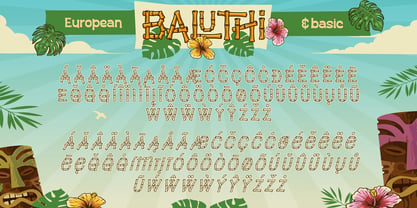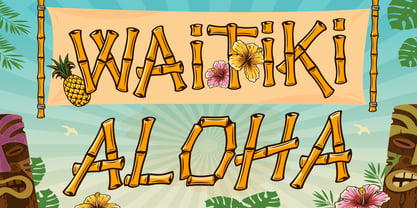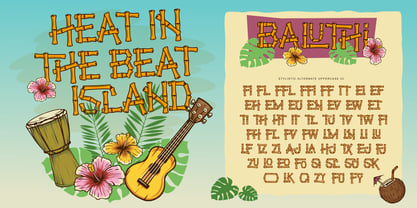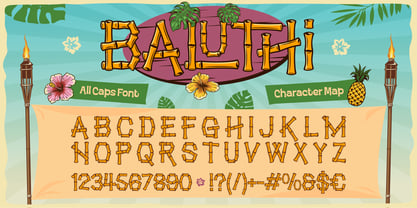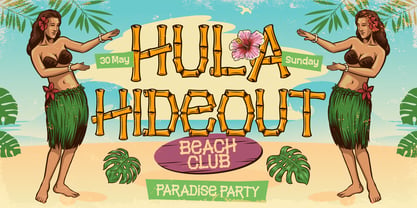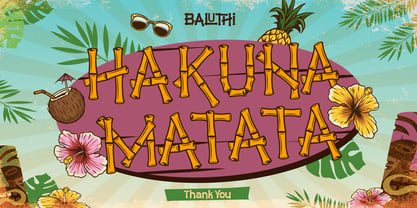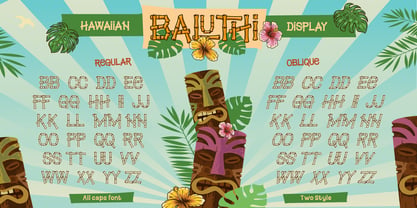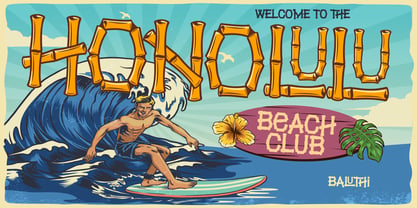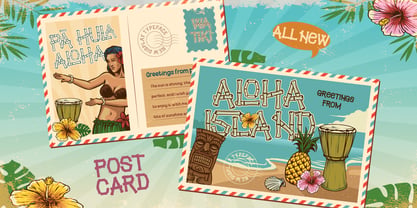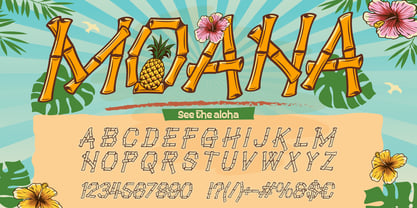
Baluthi
The Baluthi Font Family was designed by Meidy Meichico and published by Artisan Themes. Baluthi contains 2 styles and family package options. More about this family
Turn up the tropical vibes with Baluthi, a fun and distinctive bamboo Hawaiian display font handcrafted by Artisan Font. Designed with realistic bamboo stalks, joint details, and authentic wooden textures, Baluthi brings instant island charm, tiki bar energy, and beachside nostalgia to your creative projects.
This all-caps display font comes equipped with two distinct styles—Regular and Oblique—giving you maximum flexibility to build dynamic, high-energy layout headlines.
Perfect for:
• Tiki bar menus, signage, & cocktail lounge branding
• Summer beach party posters, flyers, & Hawaiian festival graphics
• Surf shop logos, apparel, & beachwear merch
• Tropical food packaging, juice labels, & restaurant menus
• Island tourism branding, YouTube thumbnails, & summer event banners